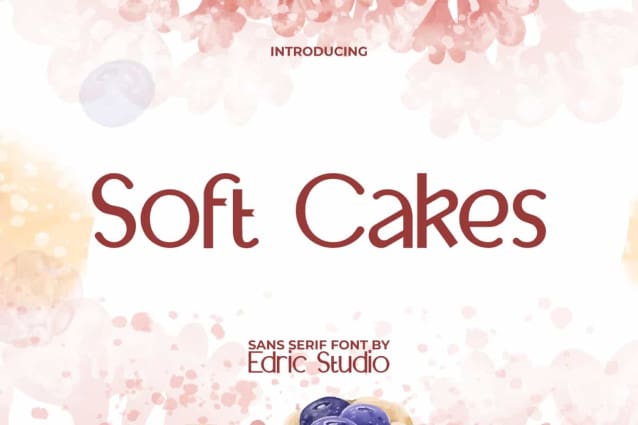
Soft Cakes Font
Soft Cakes Font is a Stunning minimalist modern sans serif display font. This font has a simple and clean style that makes every design look interesting. It will be suitable for any business, such as accessories, cafe, entertainment, fashion, food and beverages, kids stuff, party or event, photography, printing, publishing, restaurant, writer, and many more!
Soft Cakes Font comes with full set of Uppercase and Lowercase Basic Characters, Number, a large range of Punctuation, and Symbol. It has stylish characters set, perfectly managed with well spaced and kerning. Soft Cakes Font will be able to complement for any design (with extended license) including: brand image, cover, custom design, invitation, label, menu board, merchandise, packaging design, quote, screen print, signage, stationery, sticker, title, website page, etc.